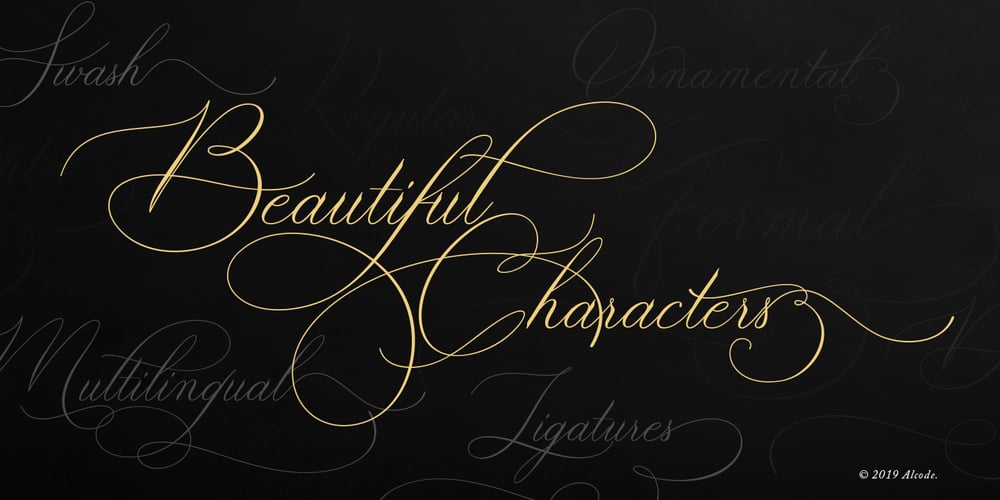
Bulgattie Font Family was designed by Sukjana Almunandar and published by Alcode. Bulgattie contains 1 styles and family package options. Bulgattie is actually a unique font, I build it with the spontaneity of my relaxed hands. designing a formal font but having a classic element, which makes it particularly suitable for wedding media, book covers, greeting cards, logos, branding, business cards and certificates, in fact for any design work that requires a clasik, formal or luxury look. Try Bulgattie, enjoy its wealth of OpenType features and let its vigorous yet elegant exuberance delight you and enhance your creativity! You can use this font very easily.